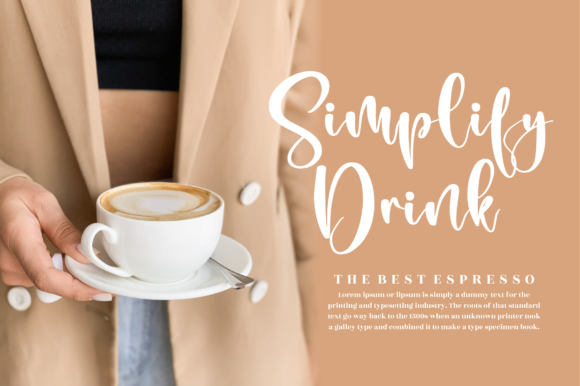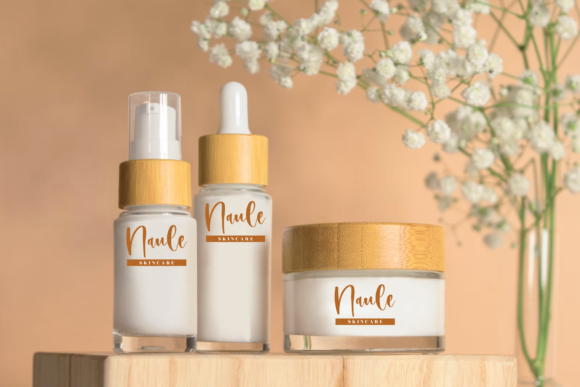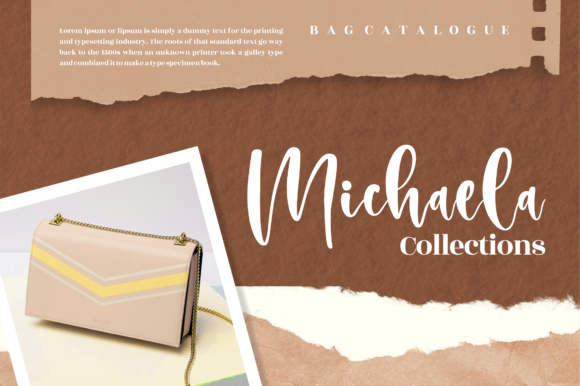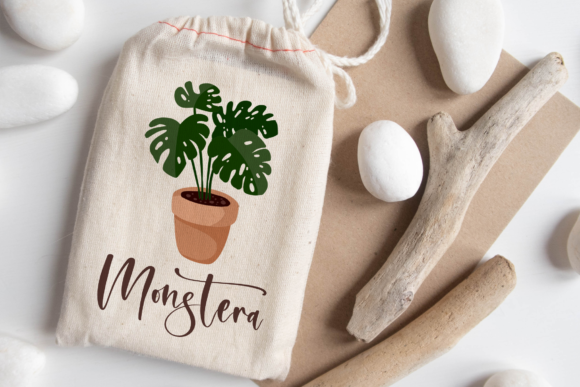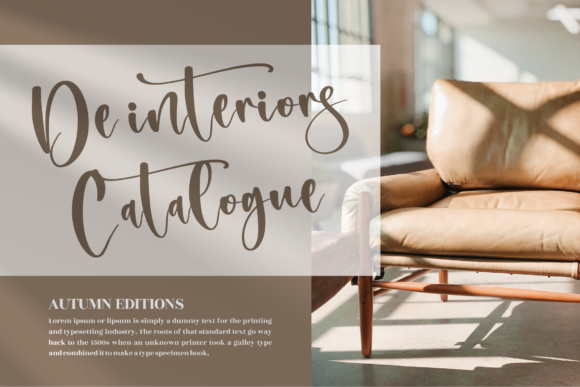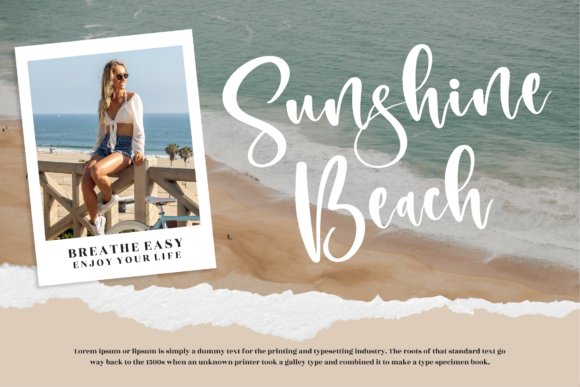
Discover the Elegance of Gelista Font: Elevate Your Designs with its Ravishing Style
In the realm of typography, few fonts manage to capture the essence of elegance and sophistication as effortlessly as Gelista. This distinct, graceful script font has been making waves in the design community, and for good reason. Its ravishing style is not just visually stunning but also incredibly versatile, making it an excellent choice for designers and crafters looking to add a touch of luxury to their projects.
The Unique Charm of Gelista
Gelista stands out in a sea of fonts due to its unique blend of classic elegance and modern flair. Each letter is crafted with meticulous attention to detail, resulting in a fluid and harmonious script that exudes sophistication. Whether you’re working on a branding project, a wedding invitation, or a packaging design, Gelista brings a level of refinement that’s hard to match.
PUA Encoding: Unlocking Full Creative Potential
One of the key features that sets Gelista apart is its PUA (Private Use Area) encoding. This means that the font includes a comprehensive range of glyphs and swashes, easily accessible to help you bring your creative visions to life. With PUA encoding, you can effortlessly incorporate intricate details and flourishes into your designs, allowing for a level of customization that can elevate your work from ordinary to extraordinary.
The versatility of Gelista is one of its most compelling attributes. This font can seamlessly transition across various design applications, including:
- Branding and Logotypes: Use Gelista to create memorable logos and brand identities that convey elegance and sophistication.
- Wedding and Event Stationery: Add a touch of romance and luxury to your wedding invitations, save-the-dates, and other event materials.
- Packaging Design: Elevate your product packaging with a font that communicates high-end quality and style.
- Digital Media: From social media graphics to website headers, Gelista can add a level of refinement to your digital content.
Tips for Working with Gelista
To make the most of Gelista’s stunning features, consider the following tips:
- Experiment with Swashes: Don’t be afraid to explore the range of swashes and glyphs available. These can add a unique touch to your designs and help you create something truly one-of-a-kind.
- Mix and Match: Combine Gelista with other fonts to create interesting contrasts and hierarchies in your designs. Its elegant script style pairs well with a variety of typefaces.
- Pay Attention to Spacing: As with any script font, spacing is crucial. Make sure to adjust the letter spacing to ensure your text remains legible and visually appealing.
Gelista is more than just a font; it’s a design statement. Its graceful script and extensive features make it an invaluable tool for designers and crafters aiming to create stunning, high-end designs. With its PUA encoding, you have the freedom to explore a wide range of creative possibilities, ensuring your projects stand out in the best possible way. Whether you’re a seasoned professional or just starting out, Gelista is sure to inspire and elevate your design work.
So, fall for the ravishing style of Gelista and discover how this beautiful script font can transform your designs. Embrace its elegance, experiment with its features, and watch as your creative projects take on a whole new level of sophistication and charm.